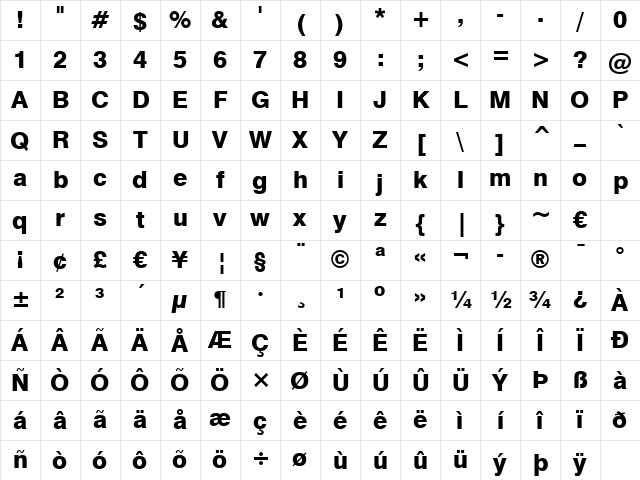
Swis721 Hv BT Heavy
Complete Swis721 Hv BT Heavy glyph index. Displaying only characters natively supported by Swis721 Hv BT Heavy font.
Design Context for Swis721 Hv BT
Swis721 Hv BT is a composed and adaptable typeface that performs quietly and consistently across a wide range of design contexts.
Pro Tip: Use Swis721 Hv BT in both headline and body roles to test its range before committing to a single application.